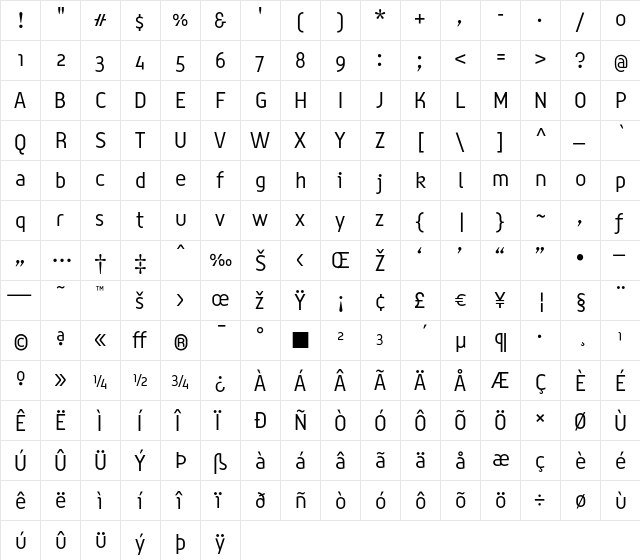
OgilveTwoThin Regular
Design Context for OgilveTwoThin Typeface
OgilveTwoThin takes a measured approach to typography — its balanced proportions and neutral character make it a reliable workhorse for both digital and print work. Its slender proportions lend an understated elegance to any composition.